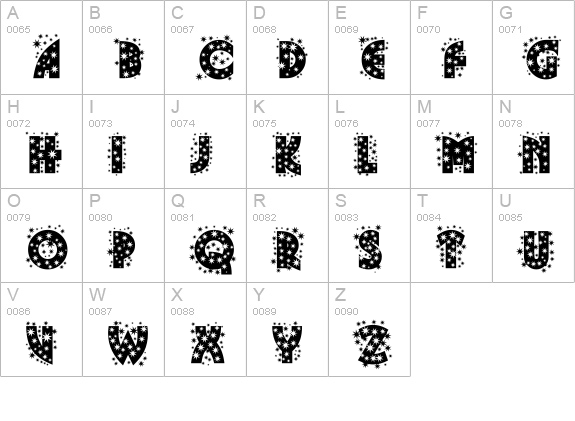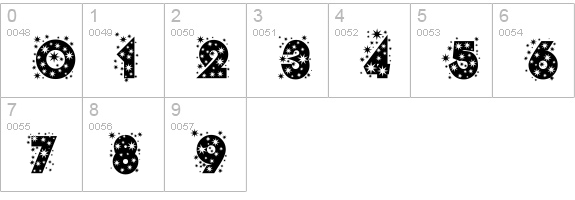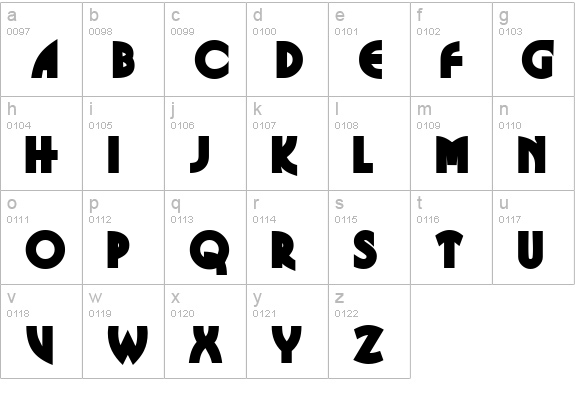
Glitter Font Font Details
Introducing Glitter Font, a mesmerizing and enchanting typeface that will bring a touch of glamour and sparkle to your projects. This unique font features intricate glittery details that will effortlessly elevate any design to a whole new level of sophistication and elegance. The Glitter Font is perfect for adding a touch of magic to invitations, posters, branding, and more. Its dazzling appearance will captivate your audience and make your text truly stand out. Best of all, Glitter Font is available for free download at FontsMarket.com. So, don't miss out on this opportunity to add a touch of glitz and glamour to your designs with this stunning font. Download it now and let your creativity shine!